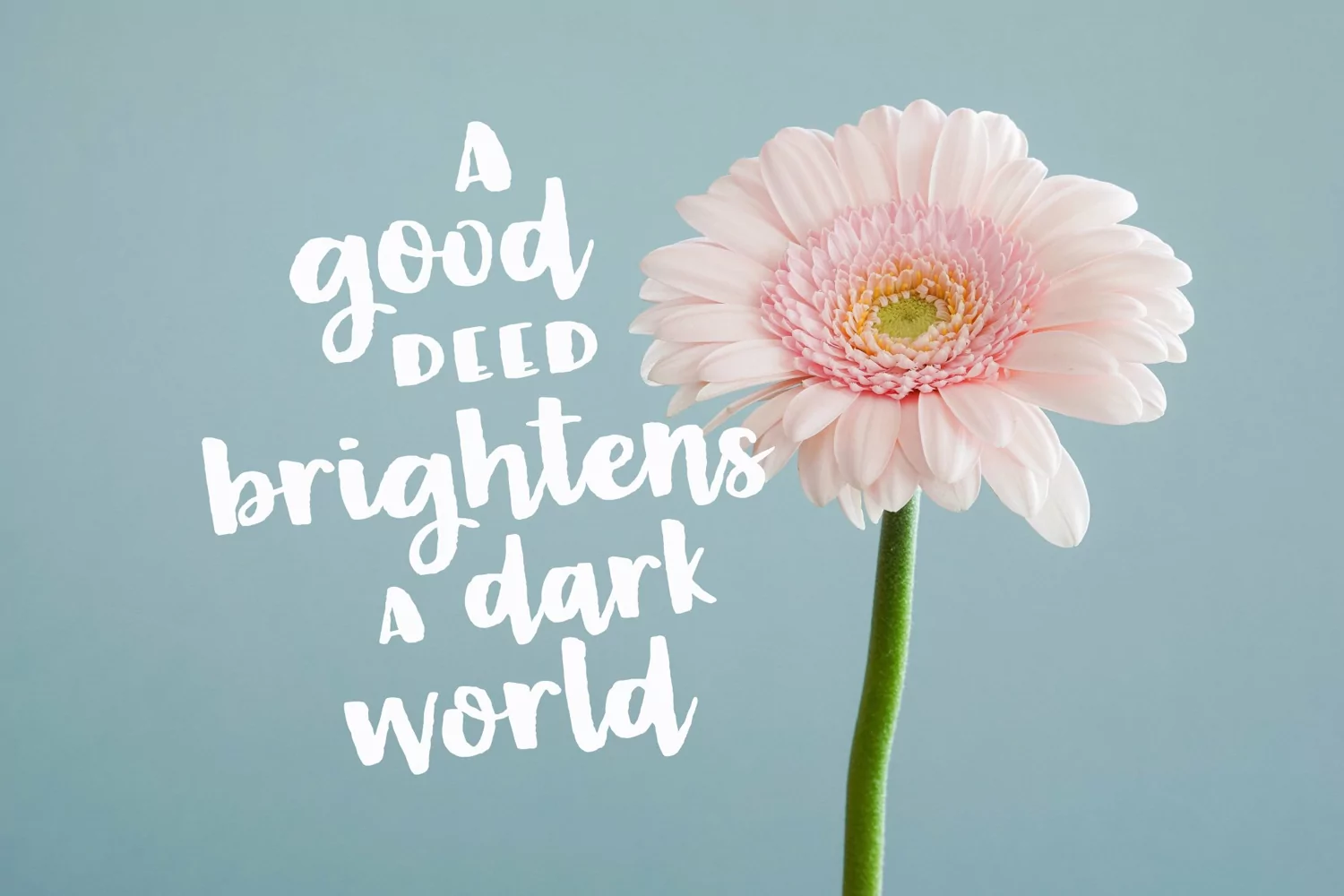
Butterbell & Toast Textured Font Duo
Introducing Butterbell & Toast! A sugar sweet font duo.
This adorable font duo was made with my favorite watercolors and a teeny tiny brush. I retained all of the lovely wobbly rough watercolor edges for you so you can easily mimic the look of hand painted letters!
Butterbell is a sweet, curling script with pretty details, and pairs wonderfully with Toast - an all caps font with regular uppercase capitals and teeny lowercase caps.
Butterbell includes many standard and double letter ligatures to get that perfect hand made look.Great for branding, logos, and quote art.